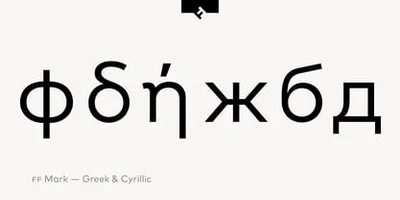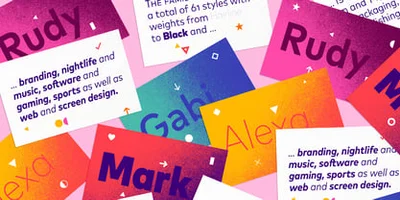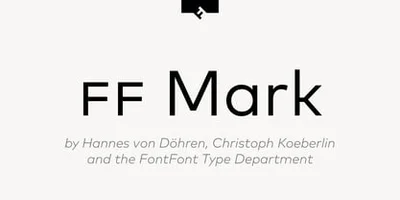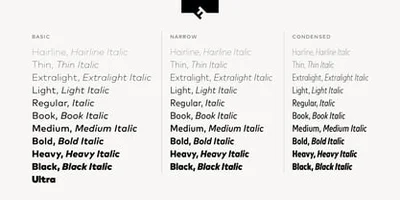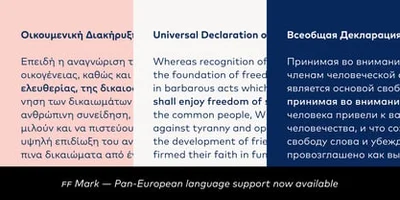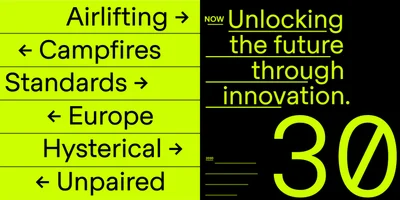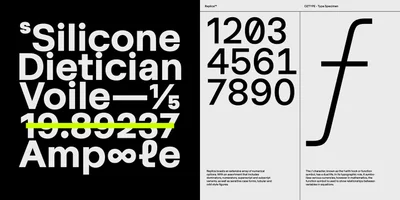
Mark Pro vs Replica
Mark Pro and Replica are both sans-serif typefaces sharing a geometric foundation. Where Mark Pro leans modern, Replica brings neo-grotesque. Compare which suits your Branding project.
Recommended: Mark Pro
- modern design character
- Suited for Ui and Tech
Consider: Replica
- neo-grotesque design character
- Suited for Editorial and Signage